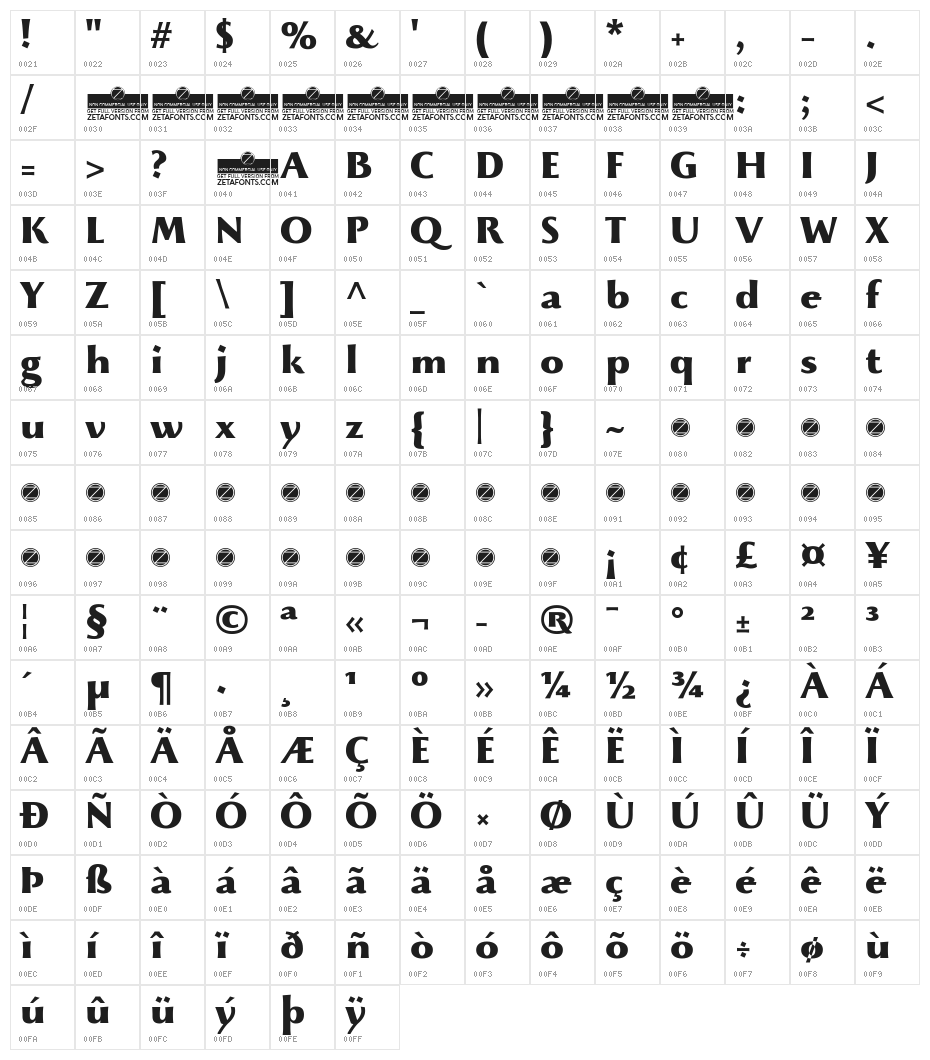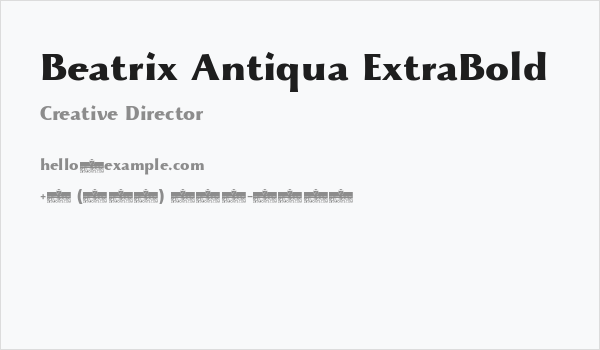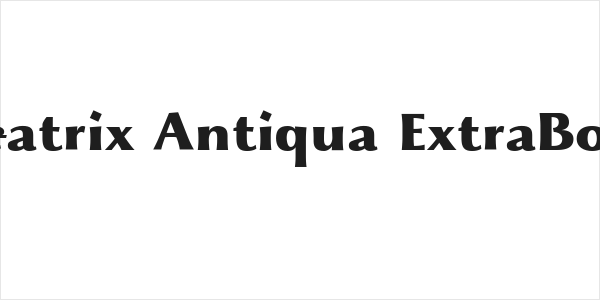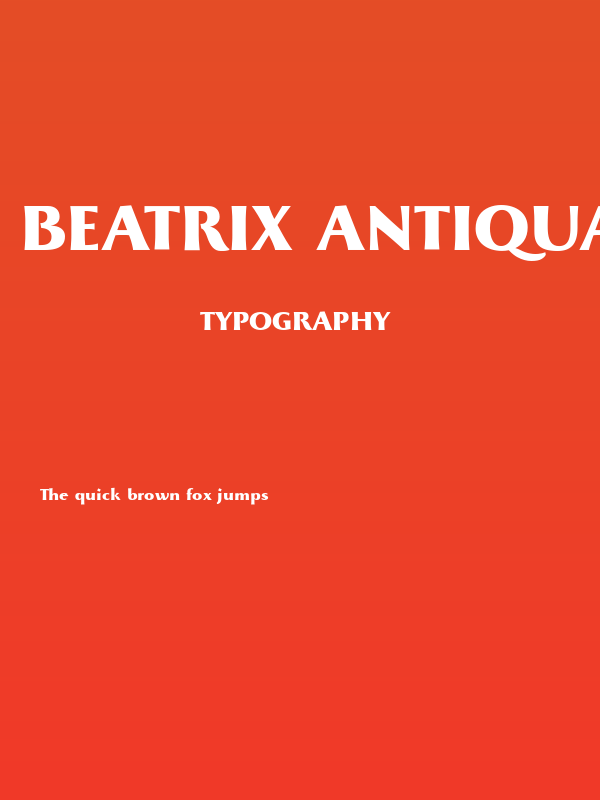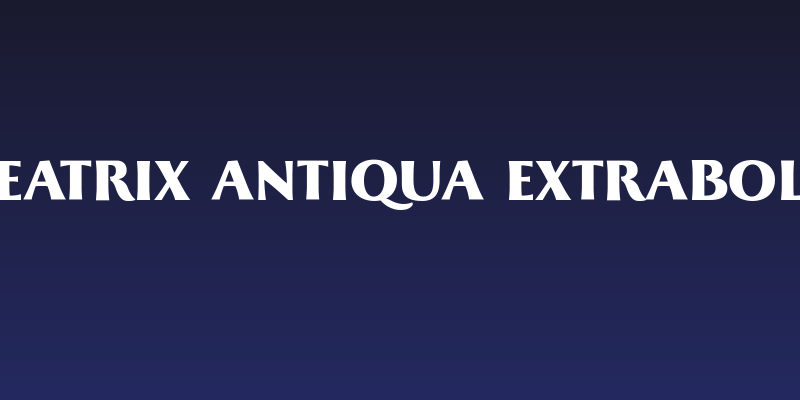
Beatrix Antiqua ExtraBold Font
Beatrix Antiqua ExtraBold Description
This font exhibits a bold and commanding presence with its extra-bold weight and strong serif design. The characters are well-defined with a classic touch, featuring thick strokes and sharp serifs that give it a traditional yet powerful look. The uppercase letters are particularly striking, with a slight flare in the serifs that adds a touch of elegance. The lowercase letters maintain a consistent style, ensuring readability while preserving the font's bold aesthetic. The numerals and special characters are crafted with the same attention to detail, making them suitable for various design needs. Overall, this font is ideal for making a statement in any design project.
| Proposed Projects | Ideal for headlines, posters, branding, and any project that requires a strong, traditional aesthetic. |